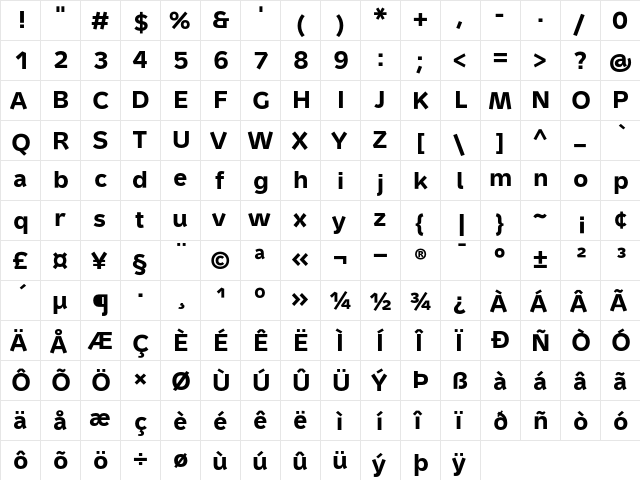
Metron Text Pro Bold
| Foundry | Rathousky, Storm & Pistora |
| Designer | Jiri Rathousky, Frantisek Storm, Marek Pistora |
Design Context for Metron Text Pro Typeface
Metron Text Pro takes a measured approach to typography — its balanced proportions and neutral character make it a reliable workhorse for both digital and print work. The heavy weight commands attention and anchors typographic hierarchies.